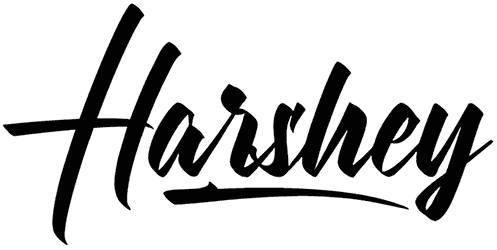
Harshey Font
Harshey is elaborate, loud, and pleasingly aggressive, a fusion of street style and sophistication. Each character feels distinct and artsy with its overly curved strokes and thick lines; although it has little readability, it makes your designs beautiful and as if the letters were written by hand. This script font does not support numeric characters but is used to design many magazines’ posters and flyers.